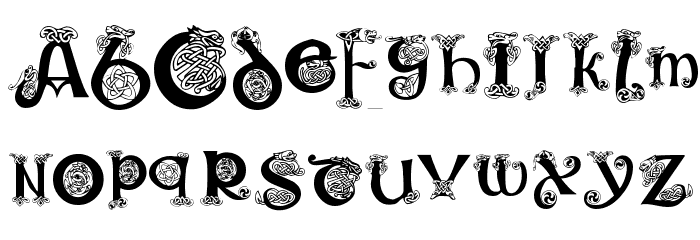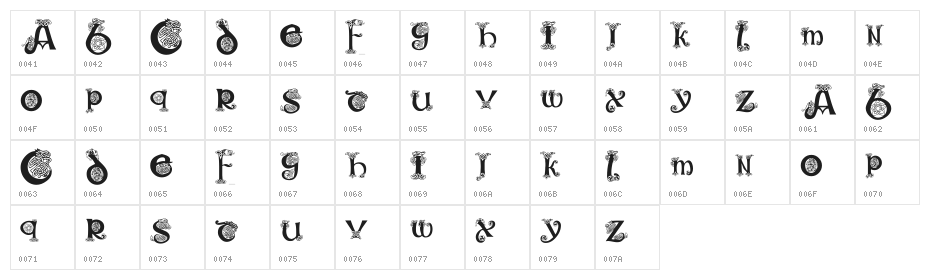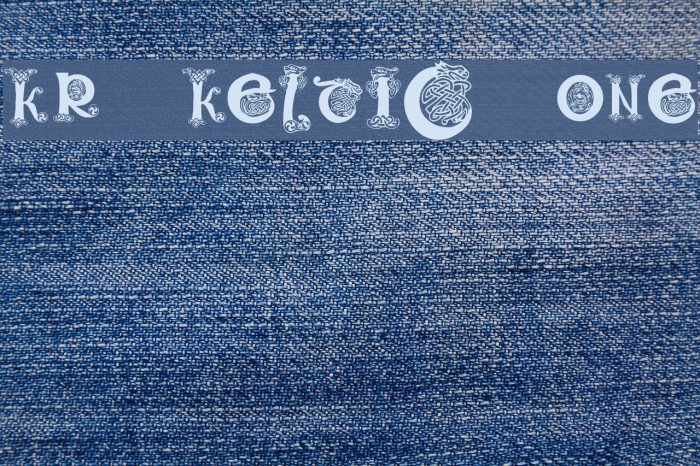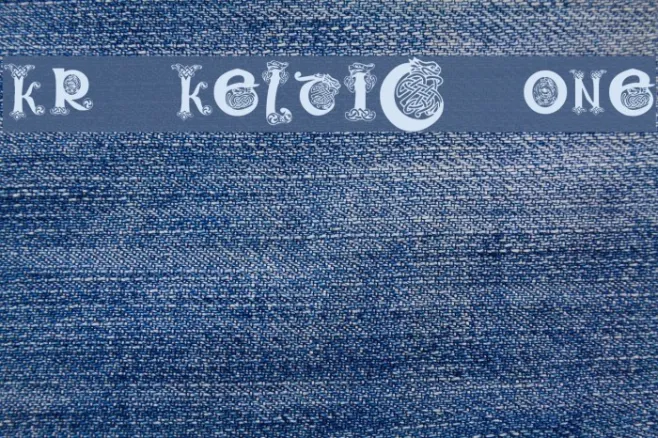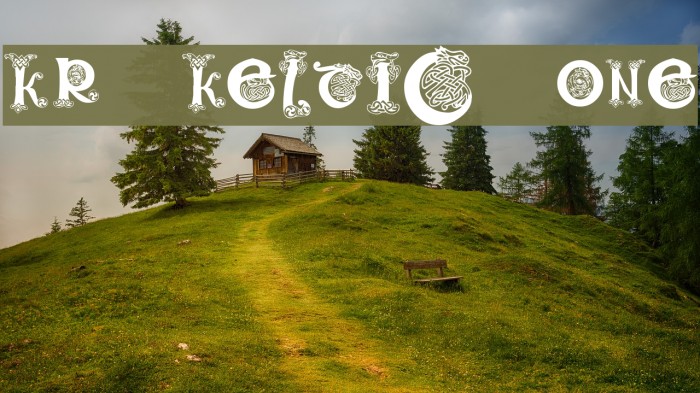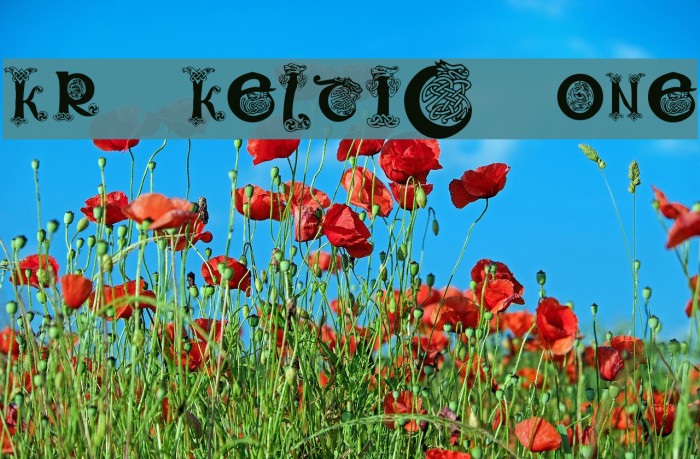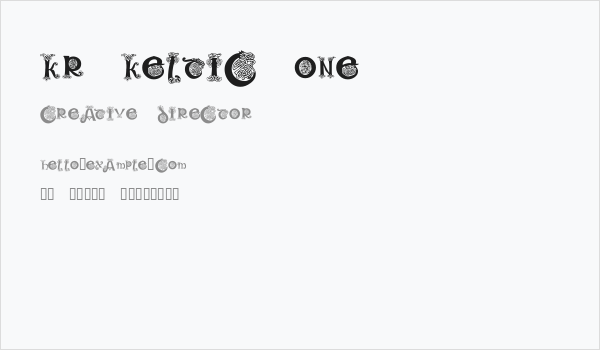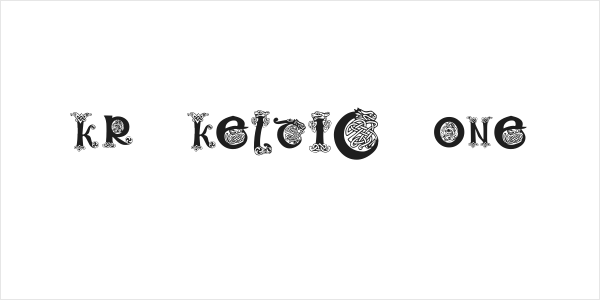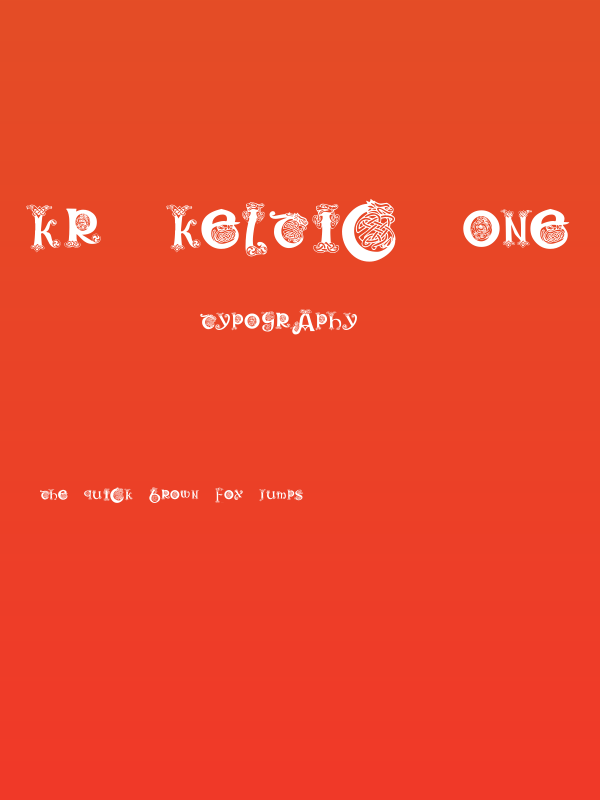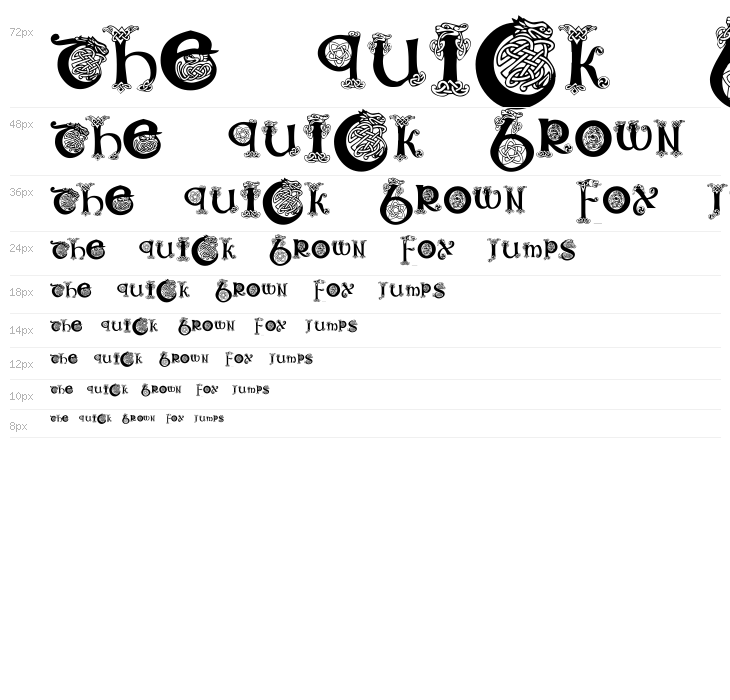
KR Keltic One Font
KR Keltic One Description
This font is a decorative and intricate design inspired by Celtic art. Each character is adorned with elaborate knotwork and swirling patterns, giving it a unique and ornate appearance. The uppercase letters are particularly detailed, with some characters featuring enclosed knot designs that add depth and complexity. The lowercase letters maintain the decorative theme but with slightly less intricacy, allowing for readability while still capturing the essence of Celtic artistry. The numbers and special characters are similarly styled, ensuring a cohesive look across all glyphs. This font is ideal for projects that require a touch of historical or cultural flair, especially those related to Celtic themes.
| Proposed Projects | Ideal for use in cultural event posters, themed invitations, book covers, and any project requiring a historical or Celtic aesthetic. |